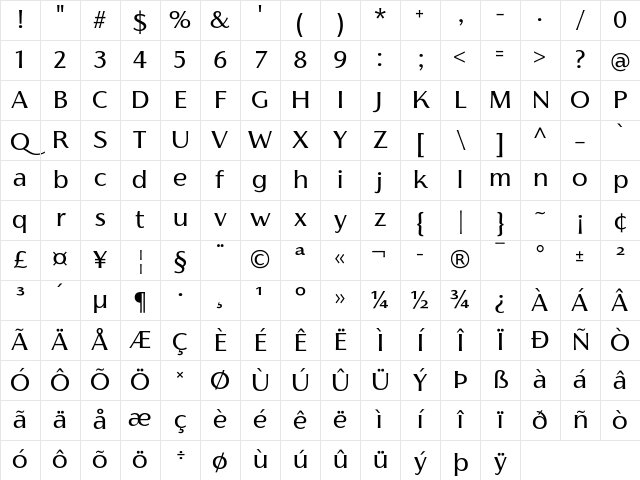
Florentia Regular
Foundry: Zetafonts
Designer: Francesco Canovaro
Design Context for Florentia
Florentia is a composed and adaptable typeface that performs quietly and consistently across a wide range of design contexts.